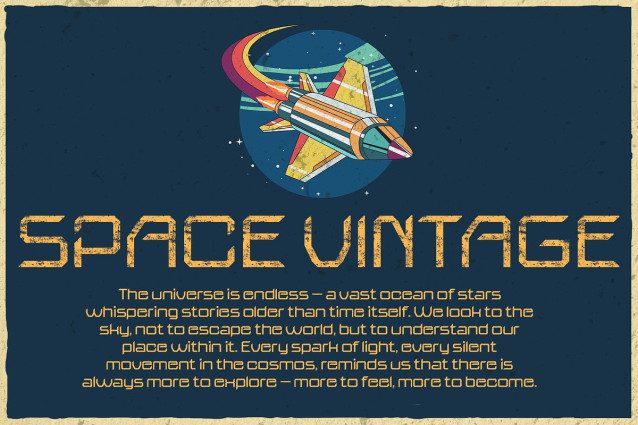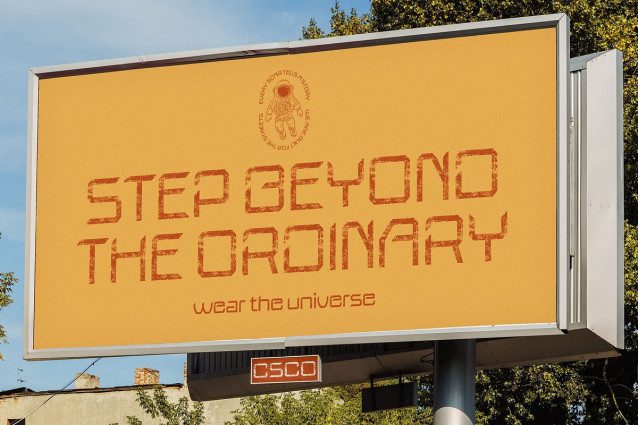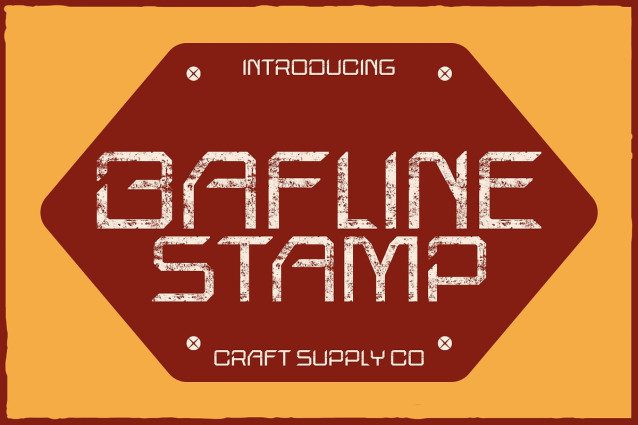
Bafline Stamp Font
Bafline Stamp Font – Futuristic Tech Font with a Vintage EdgeTech-Inspired Geometry with Sharp Precision This is a futuristic display font that captures the essence of sci-fi aesthetics through its geometric structure and sharp angular forms. Designed for impact, it blends modern digital precision with bold typographic architecture, making it ideal for video game titles, movie branding, and tech-inspired designs that demand attention and innovation.
Stamp Texture for Retro-Futuristic Appeal Adding to its modern geometry, the stamp texture introduces a vintage, tactile charm that balances the sleek futuristic feel with handcrafted imperfection. This unique contrast high-tech meets worn texture creates a striking “retro-futuristic” impression, giving the font a distinctive identity that works beautifully in both digital and print media.
Perfect for Gaming, Tech, and Sci-Fi Design This fonts dynamic form and textural character make it a strong choice for sci-fi posters, cyberpunk visuals, user interfaces, and experimental branding. The font radiates confidence and energy, reflecting the aesthetics of futuristic worlds and high-impact digital environments.
A Balance of Innovation and Style With its sharp edges, bold proportions, and stamped details, bridges modern technology and nostalgic texture. It’s more than just a display font it’s a statement of creativity and innovation, perfect for designers aiming to capture the future with a hint of vintage soul.